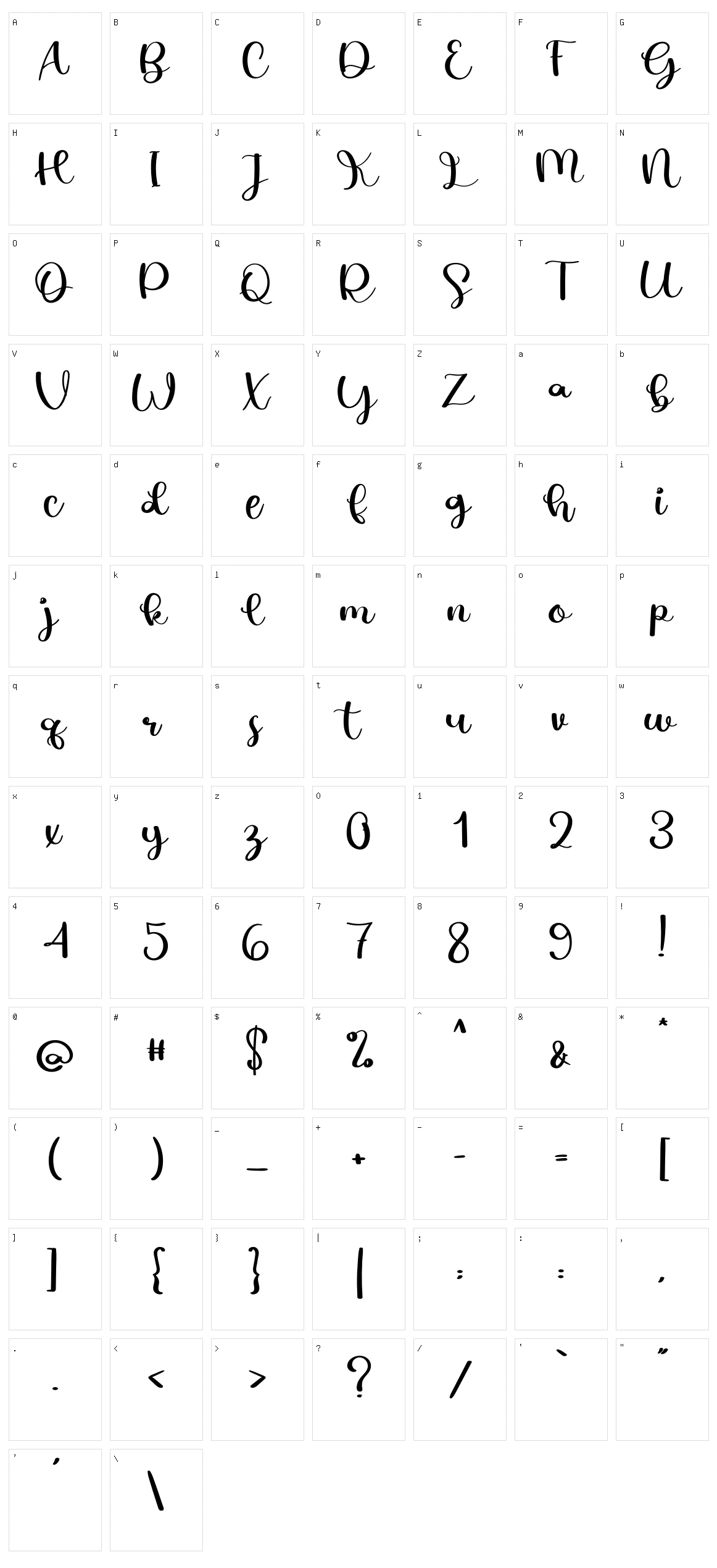
The free font Autobiography is carefully designed by Fana Merah Jambu, showcasing a thoughtful balance of creativity and usability and falls under the Script font style. When you download the ZIP file, it contains only 72.08 KB of font files, making it lightweight and quick to download. Please review the license details below to understand permitted usage and distribution rights. If license information is not available, we recommend using this font for personal projects only or contacting the author directly for commercial usage permissions.